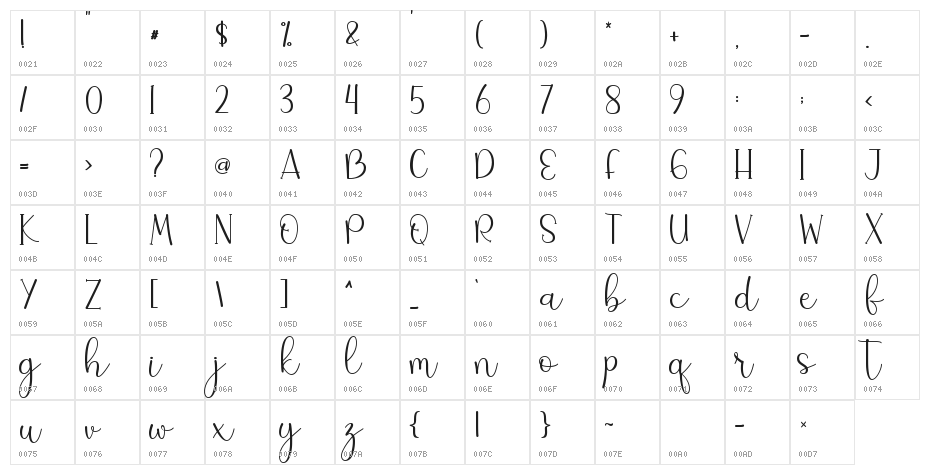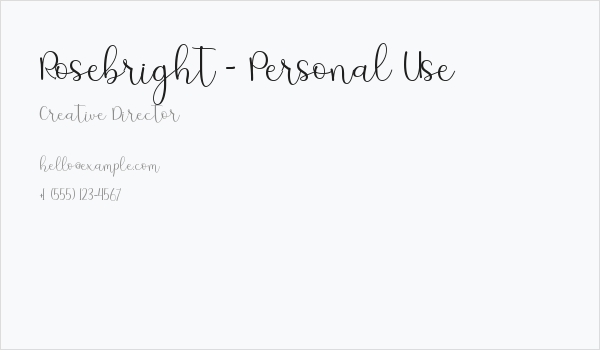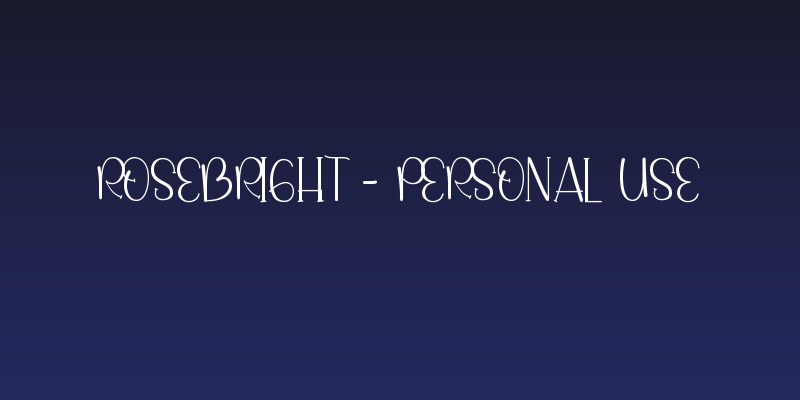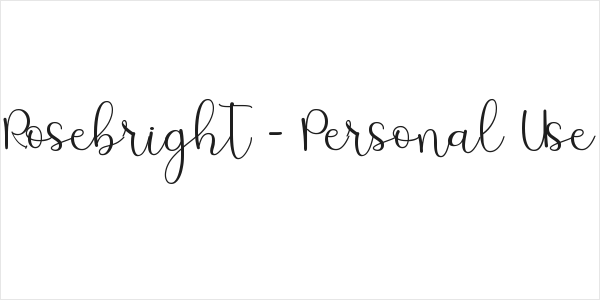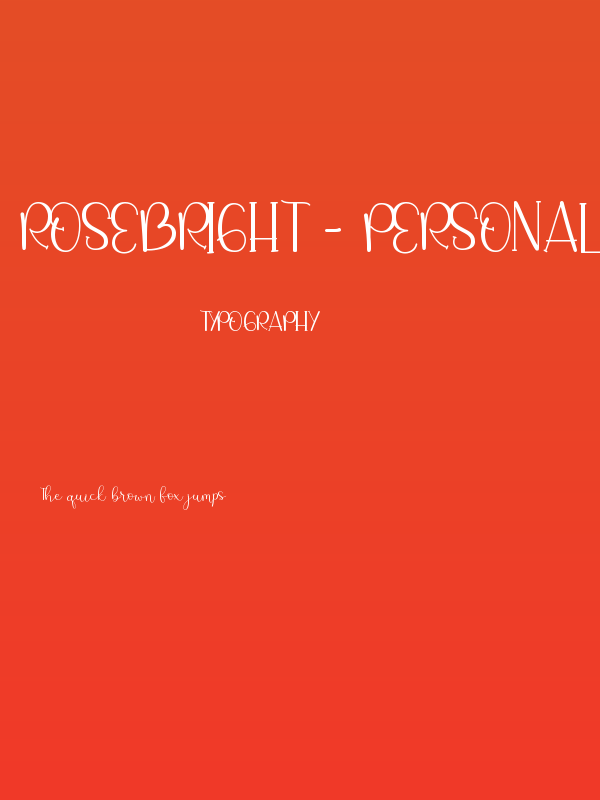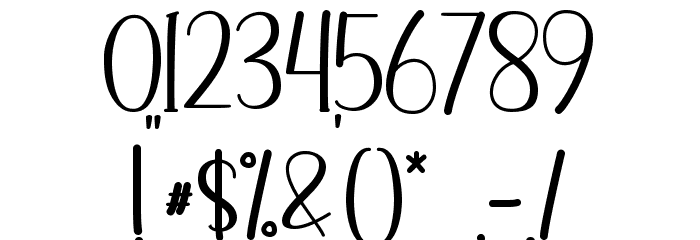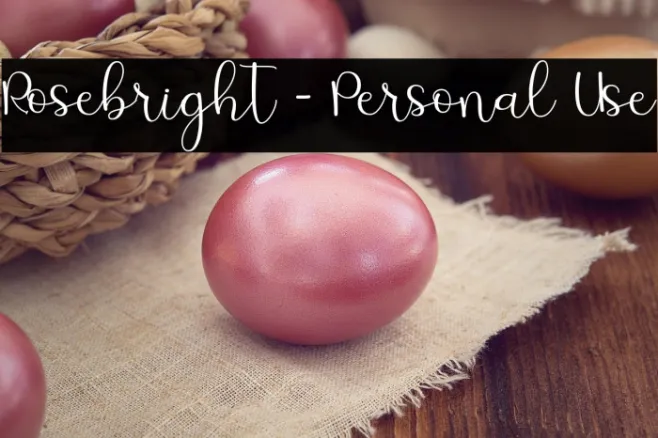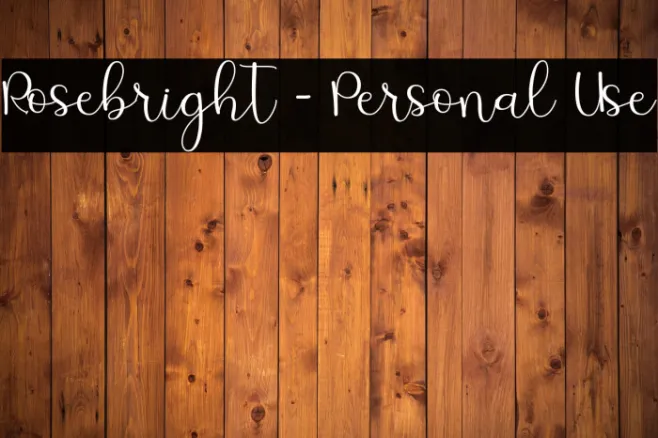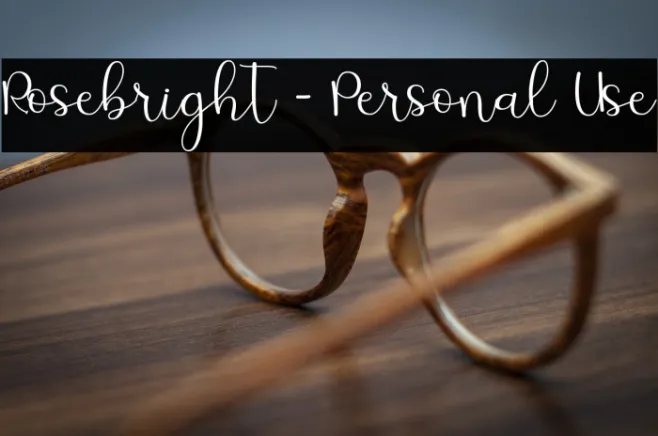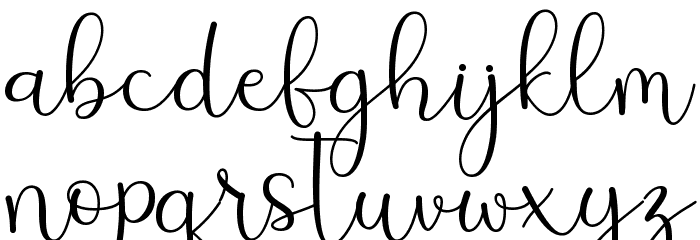
Rosebright - Personal Use Font
Rosebright - Personal Use Description
This font features a playful and whimsical style with a handwritten appearance. The uppercase letters are tall and slender, with a slight slant that adds a dynamic feel. The lowercase letters are more fluid, with loops and curves that give them a friendly and approachable look. The numbers are consistent with the overall style, maintaining the same playful and casual vibe. Special characters are creatively designed, fitting seamlessly with the rest of the font. The overall impression is one of creativity and fun, making it suitable for projects that require a personal touch.
| Proposed Projects | Ideal for greeting cards, invitations, children's books, and creative branding projects. |